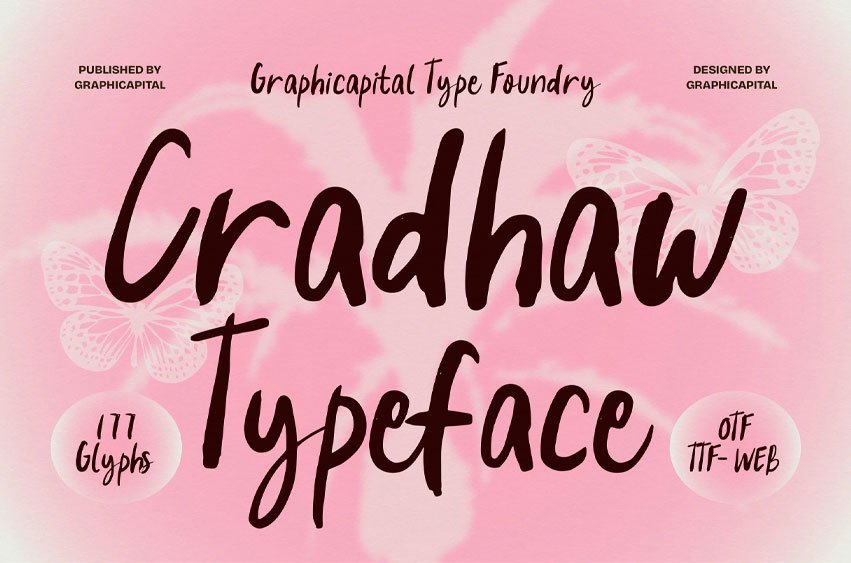
Cradhaw Font is a bold hand-drawn script typeface that combines casual charm with expressive energy. Its smooth curves and organic strokes create a natural, handcrafted feel, making it ideal for branding, packaging, and creative designs.
Ideal for branding, posters, headlines, packaging, album art, game visuals, and promotional designs. It adds personality to any creative project and helps your message stand out effortlessly.